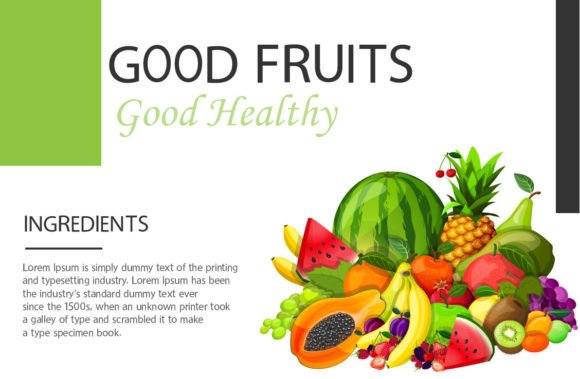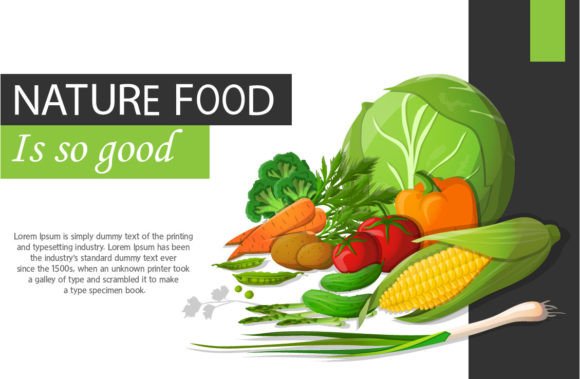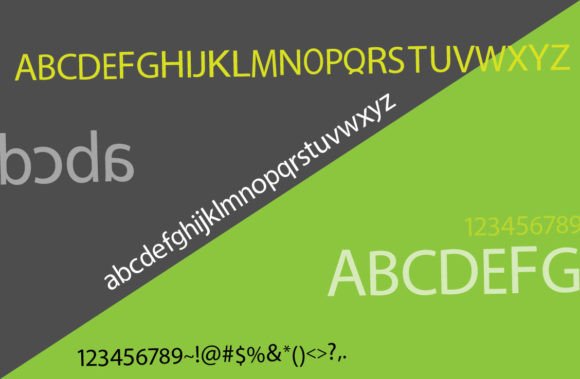
Forta Basic Font: Elevate Your Designs with a Modern and Fun Sans-Serif Typeface
In the world of typography, a font can make or break a design. With the right font, you can convey your message with clarity, add aesthetic appeal, and even evoke emotions. If you’re a designer or crafter looking for a versatile and visually appealing font, look no further than Forta Basic. This modern and fun sans-serif typeface is perfect for a wide range of design projects, from headings to body text.
The Characteristics of Forta Basic Font
Forta Basic is a sans-serif font, which means it doesn’t have the small lines or flourishes at the ends of the letters. This gives it a clean and minimalist look that’s perfect for designs that require a modern and sleek feel. The font is also highly legible, making it suitable for both headings and body text.
One of the standout features of Forta Basic is its fun and playful vibe. The font has a youthful energy that’s perfect for designs that require a bit of personality. Whether you’re designing a logo, a brochure, or a website, Forta Basic can add a touch of whimsy and creativity to your work.
Why Pair Forta Basic with Its Own Family?
Forta Basic looks great paired with its own family, which offers a range of variations and styles. By using multiple fonts from the same family, you can create a cohesive and harmonious design that’s easy on the eyes. The Forta Basic family includes a range of weights and styles, from light and regular to bold and italic.
Pairing Forta Basic with its own family allows you to create a visual hierarchy in your design. For example, you can use a bold weight for headings and a lighter weight for body text. This creates a clear distinction between the two and makes your design more readable and engaging.
The Versatility of Forta Basic Font
Forta Basic is a versatile font that can be used for a wide range of design projects. Its modern and fun sans-serif design makes it perfect for:
- Headings: Forta Basic is perfect for headings and titles, where its bold and playful personality can shine.
- Body Text: Despite its bold personality, Forta Basic works well as smaller body text, making it suitable for designs that require a lot of content.
- Logos: Forta Basic’s unique and playful design makes it a great choice for logos and branding projects.
- Websites: Forta Basic is highly legible on screens, making it a great choice for websites and digital designs.
Tips for Using Forta Basic Font
Here are a few tips for getting the most out of Forta Basic:
- Experiment with different weights and styles to create a visual hierarchy in your design.
- Pair Forta Basic with its own family to create a cohesive and harmonious design.
- Use Forta Basic for headings and titles to add a touch of personality to your design.
- Don’t be afraid to get creative and try out different colors and textures with Forta Basic.
Forta Basic is a modern and fun sans-serif typeface that’s perfect for designers and crafters looking for a versatile and visually appealing font. Its clean and minimalist design makes it highly legible, while its playful personality adds a touch of whimsy and creativity to any design. Whether you’re designing a logo, a brochure, or a website, Forta Basic is a great choice. So why not give it a try and see how it can elevate your designs?